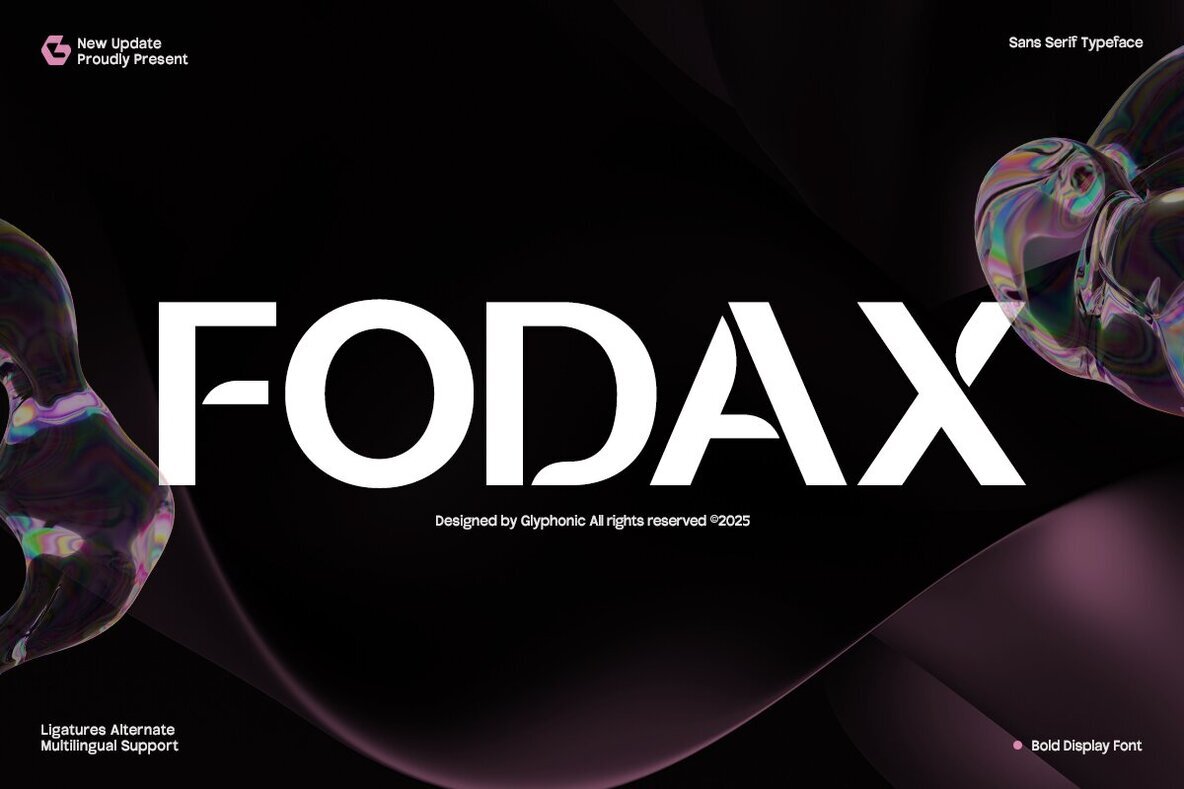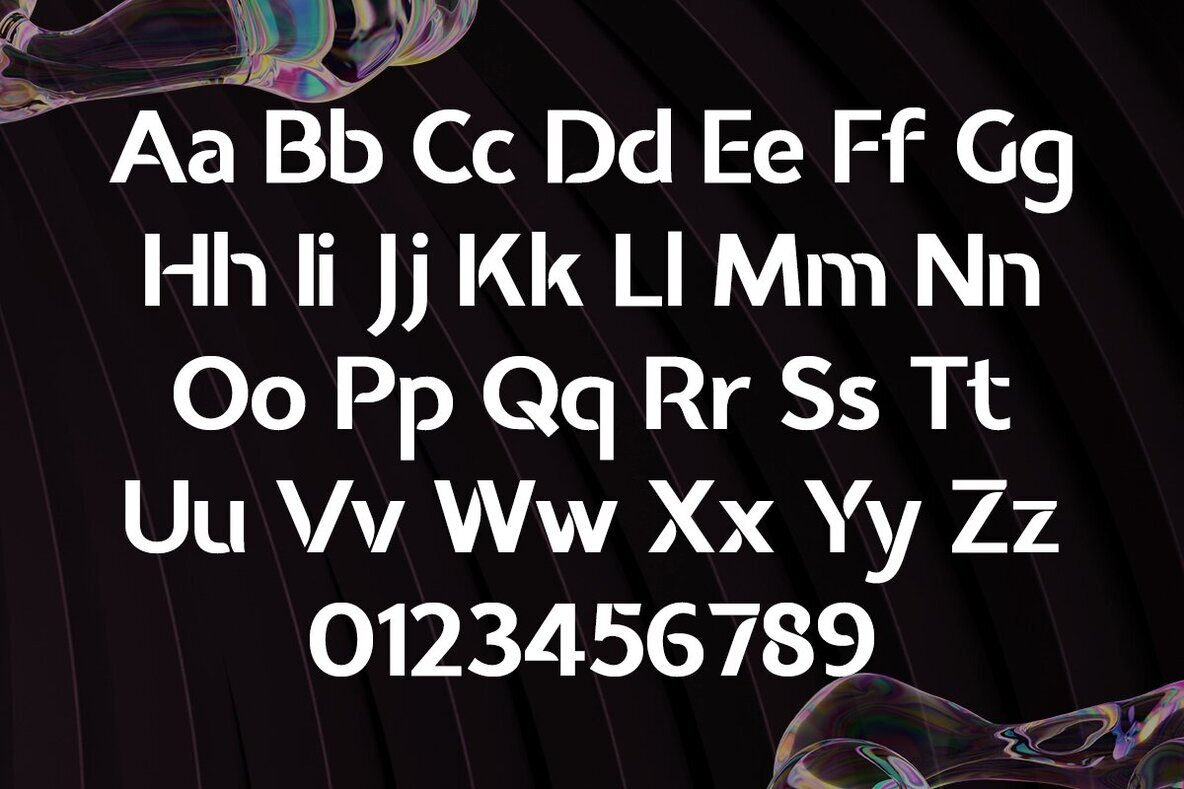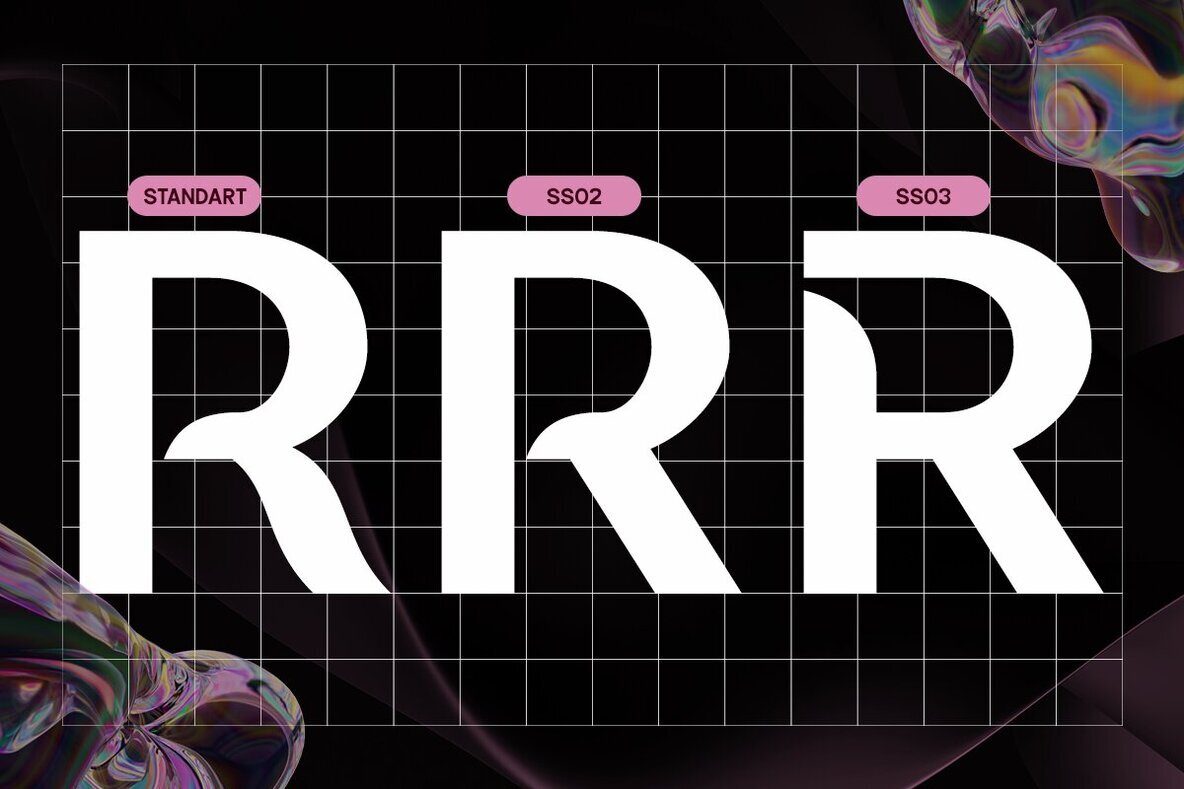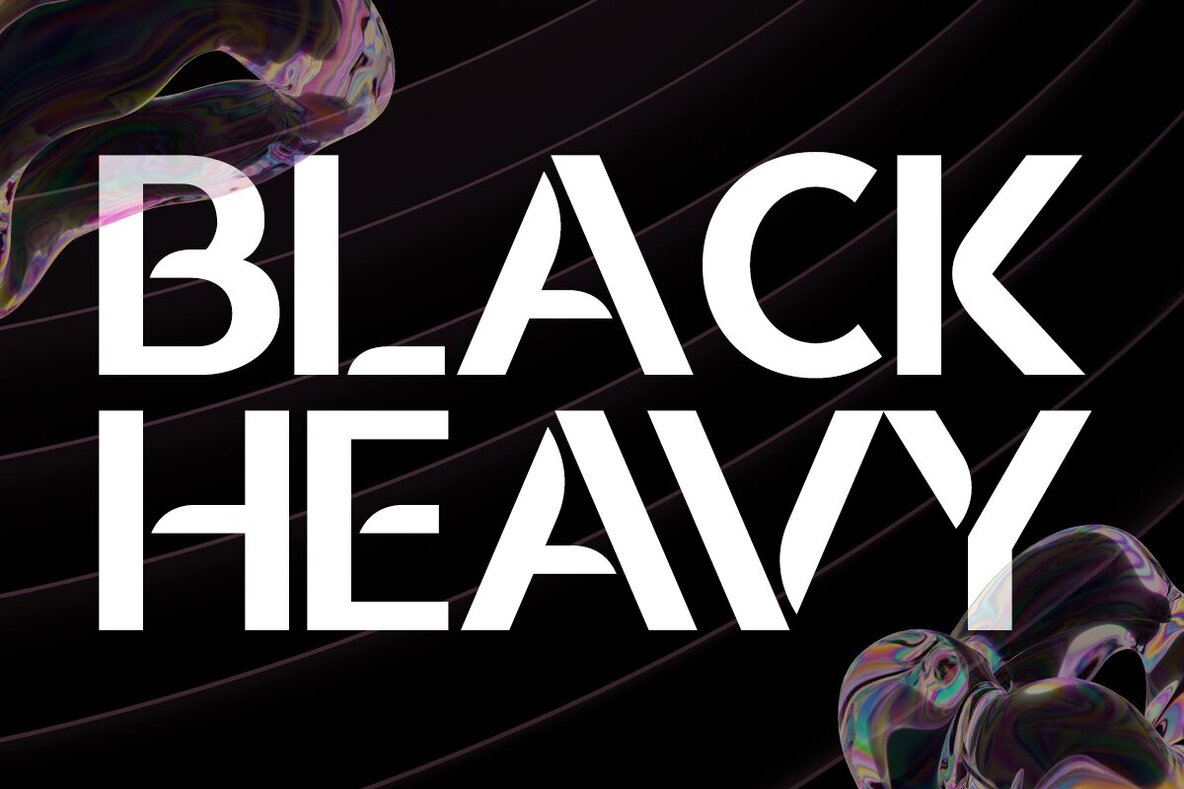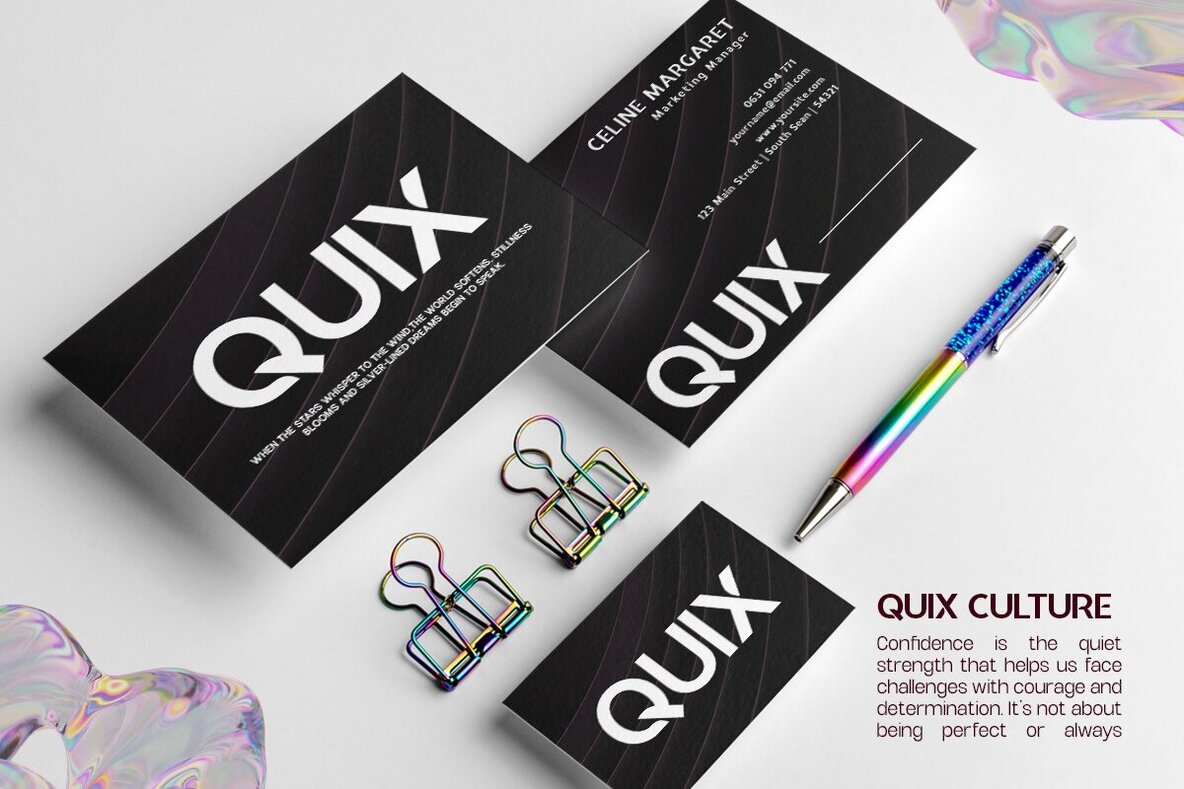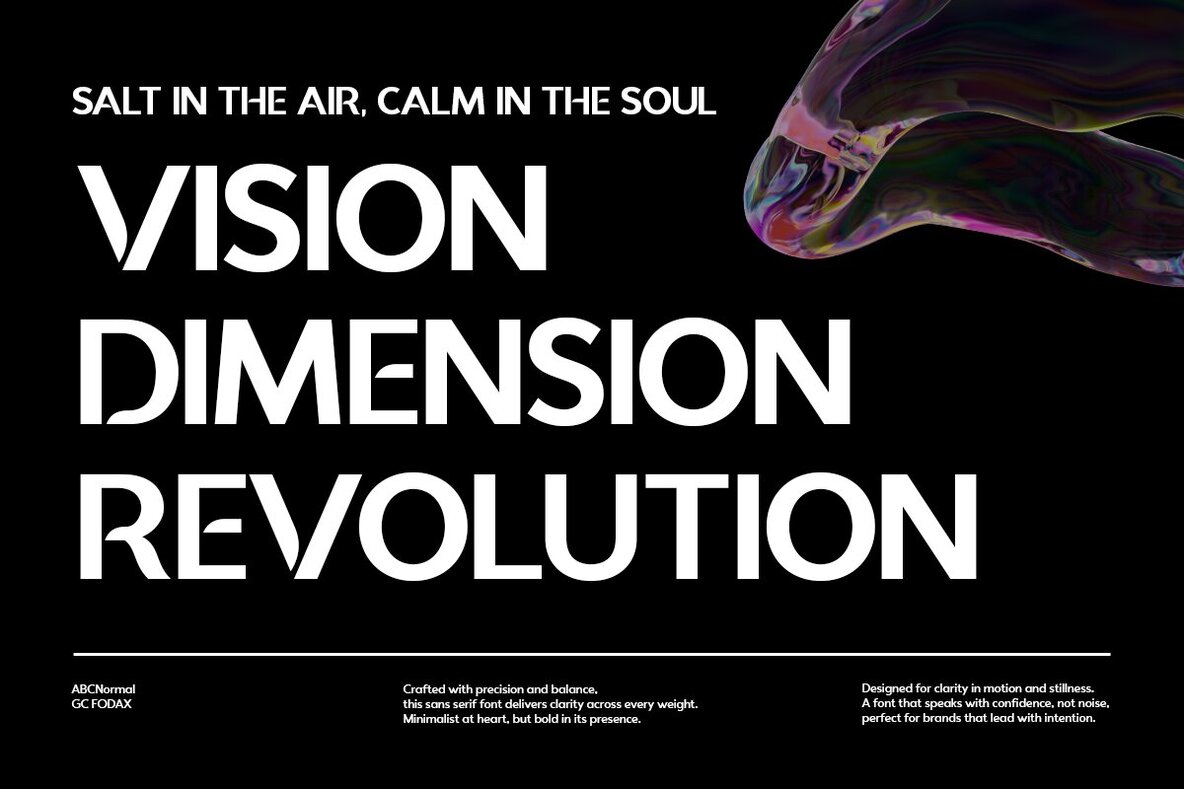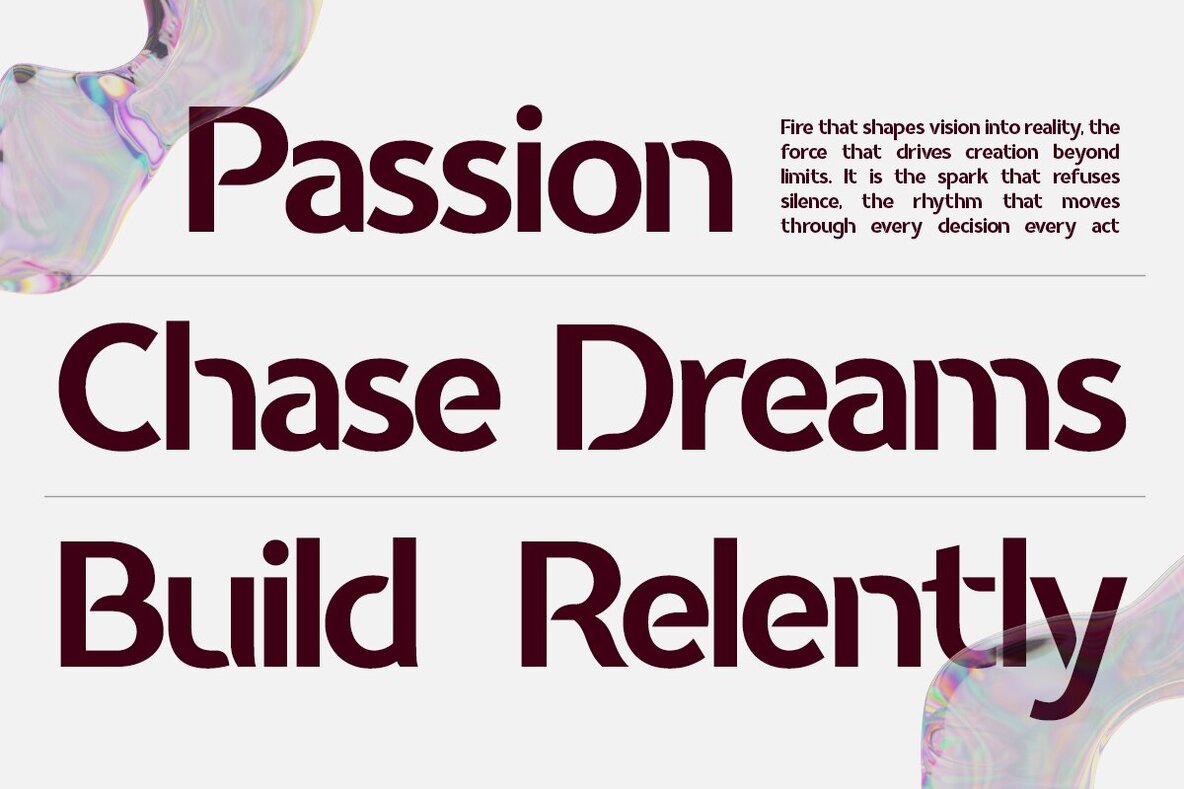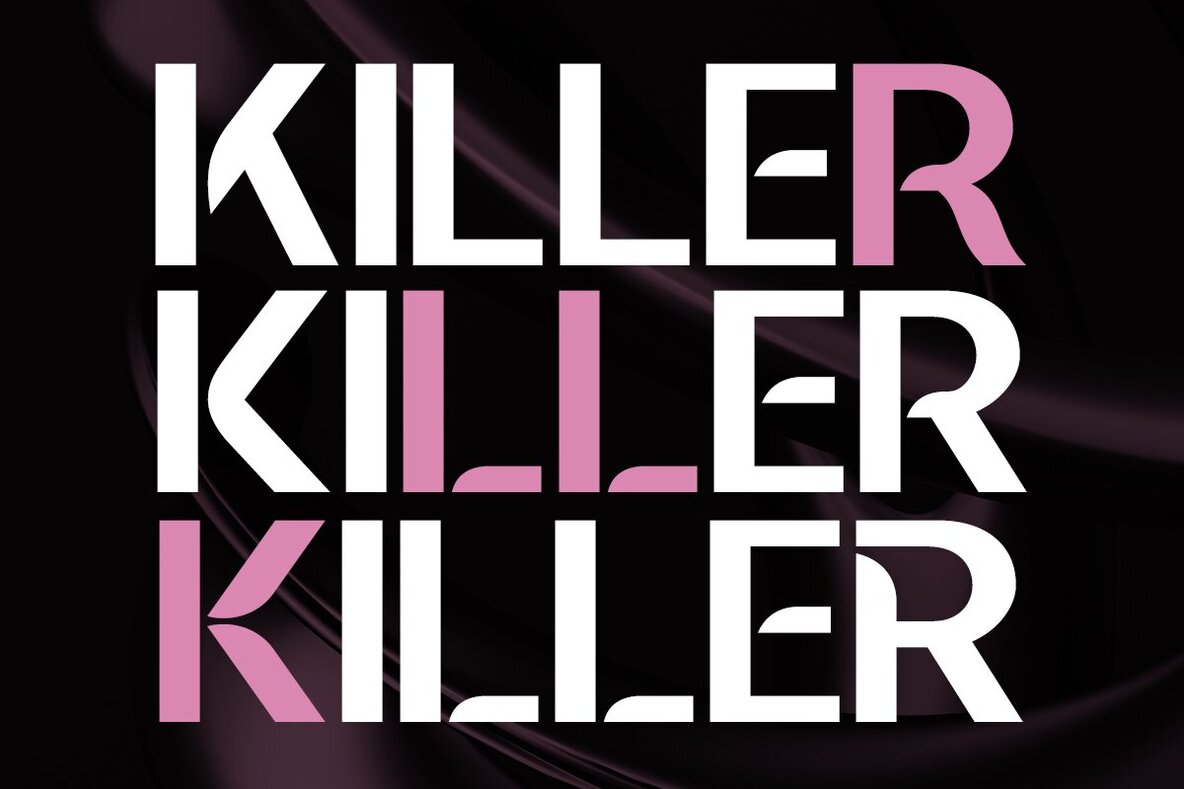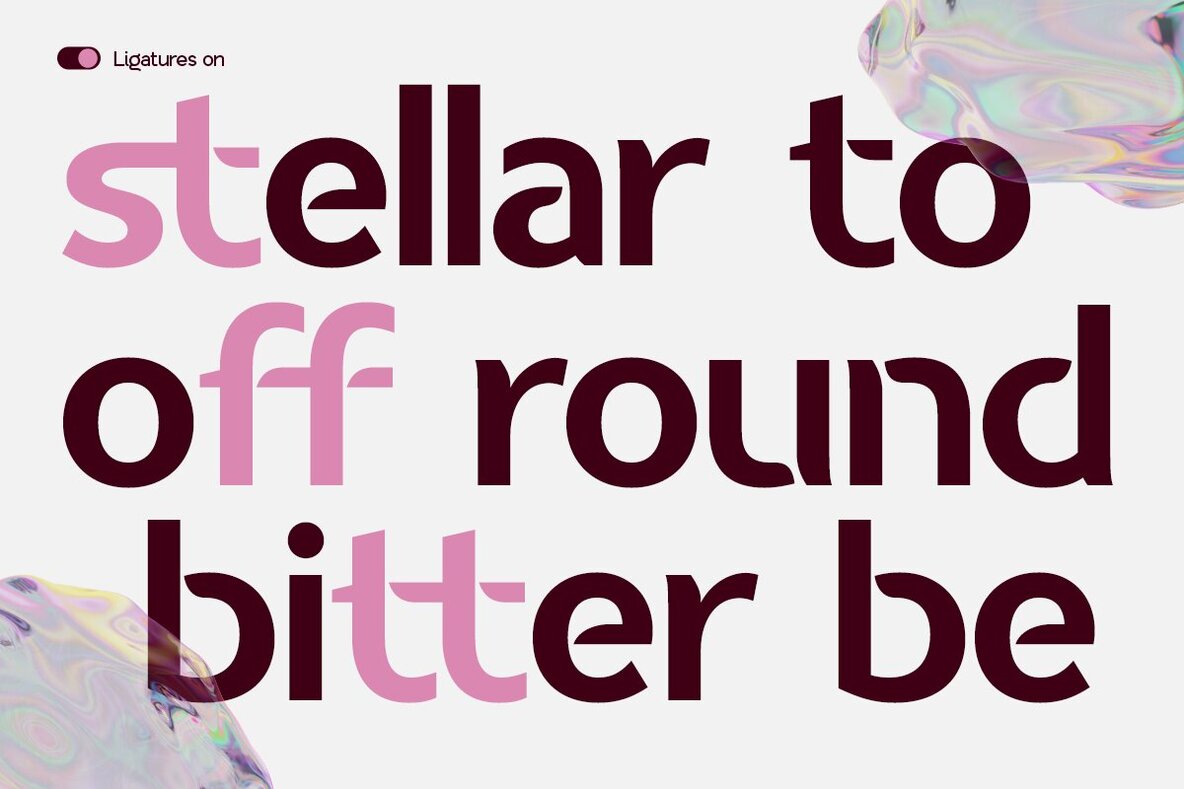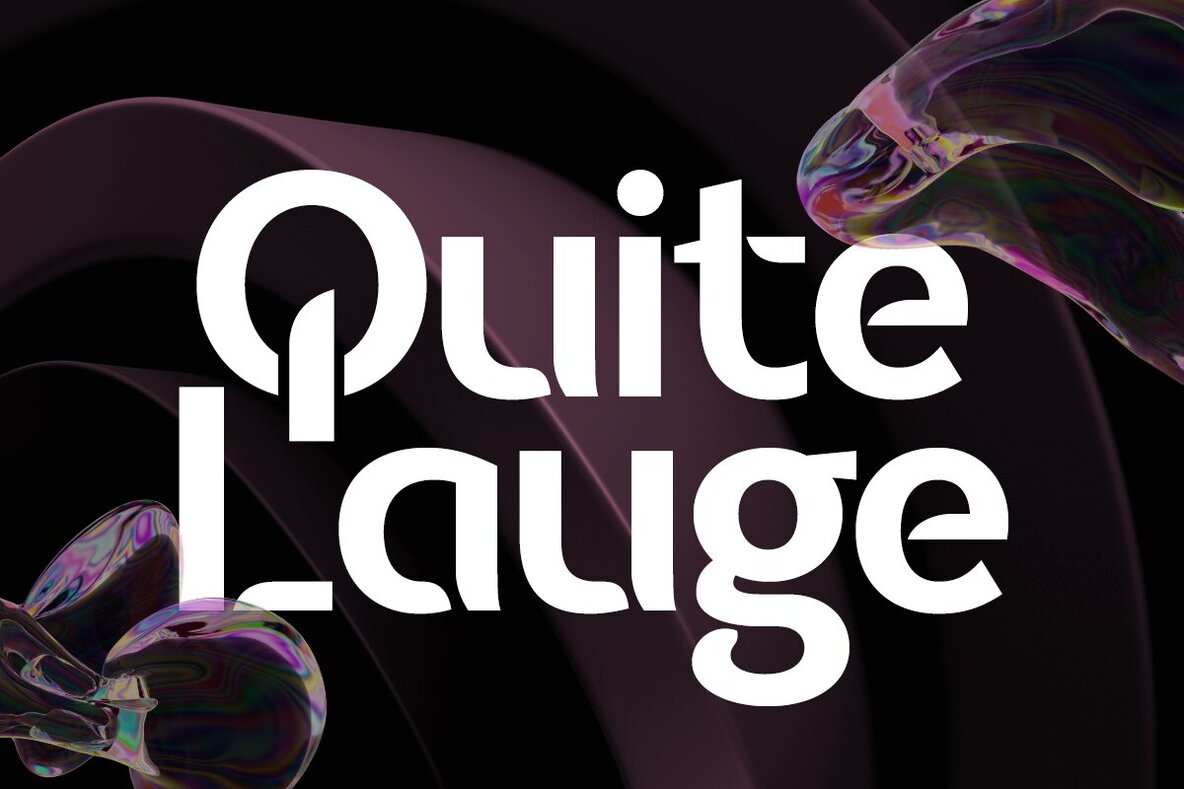
GC Fodax Font
GC Fodax Regular
GC Fodax is a bold sans serif typeface that combines clarity, strength, and modern impact. Designed with clean geometric forms and assertive strokes, it offers a confident voice for both digital and print applications. The typeface embodies simplicity without sacrificing personality, making it perfect for branding, editorial layouts, tech-forward designs, and striking visual identities. With balanced proportions and refined detailing, GC Fodax is both versatile and distinctive. It pairs well with sleek interfaces, commanding headlines, and minimalist posters. This typeface adds power, precision, and elegance to your typography. Enhance your next project with the bold clarity and modern elegance of GC Fodax.GC Fodax: Bold Sans Serif Typeface